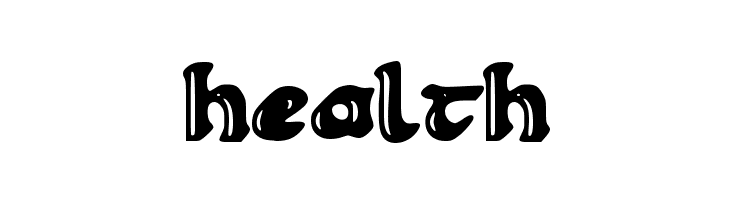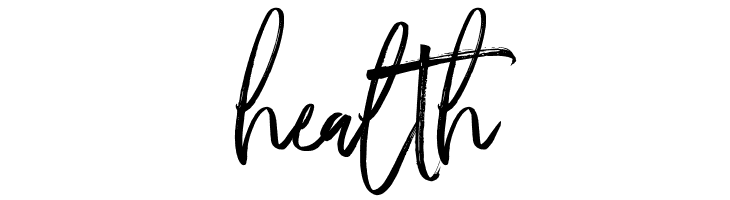
A bold, distressed font with a rugged, grunge appearance.
A bold, geometric font with a strong, modern presence.
A bold, geometric font with uniform stroke widths and a modern edge.
A bold, decorative font with a gothic and medieval style.
A dynamic and elegant cursive script font with a modern yet classic appeal.
A bold, decorative font with a Celtic-inspired design, featuring thick, rounded characters and unique curves.
A bold, decorative font with Gothic-inspired, intricate details.
A dynamic, expressive handwritten font with fluid strokes and varying thickness.